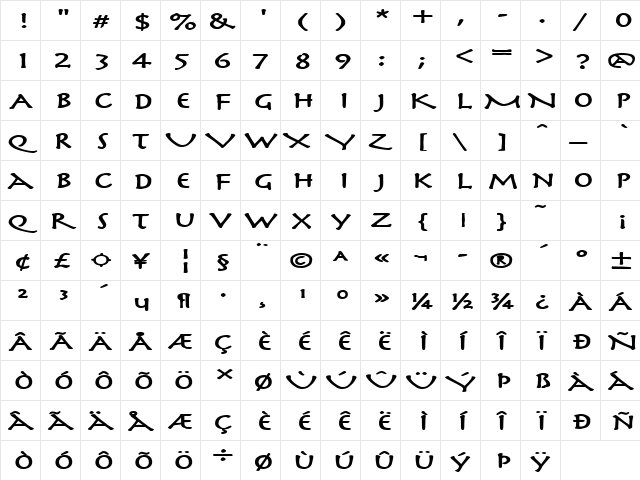
Mythology Extended Bold
Design Context for Mythology Extended Typeface
Mythology Extended is a composed and adaptable typeface that performs quietly and consistently across a wide range of design contexts. Its bold stroke weight gives it real presence on the page.